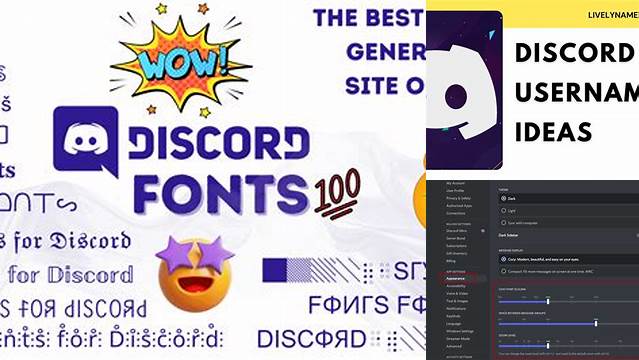
Change Discord Username Font: A Step-by-Step Guide
Hey there, Discord enthusiasts! Want to spice up your Discord profile and make your username stand out from the crowd? One of the coolest ways to do that is by using unique and stylish fonts. Discord itself doesn't offer built-in font customization, but don't worry, there are some clever workarounds we can use. In this comprehensive guide, we'll explore various methods to change your Discord username font, discuss the limitations, and provide you with tips to ensure your new font looks awesome across different devices and platforms. So, buckle up, and let's dive into the world of Discord font customization!
Why Change Your Discord Username Font?
Before we jump into the how-to, let's quickly address the why. Why would you even want to change your Discord username font? Well, there are several compelling reasons:
- Personalization and Expression: Your Discord username is a key part of your online identity. Using a unique font allows you to express your personality and make your profile more memorable. It's like adding a personal touch to your digital handshake.
- Standing Out in a Crowd: Discord servers can be bustling places, with hundreds or even thousands of users. A distinctive font can help your name catch the eye and make you more visible in chat lists and member directories. Think of it as your digital spotlight.
- Creating a Brand: If you're using Discord for streaming, content creation, or building a community, a consistent and recognizable username font can contribute to your overall brand identity. It helps people easily identify you and your content.
- Just for Fun: Sometimes, you just want to experiment and try something new! Changing your font can be a fun way to refresh your Discord experience and show off your creativity. After all, why not have a little fun with your online presence?
So, now that we've established the why, let's move on to the exciting part: how to actually change your Discord username font.
Methods to Change Your Discord Username Font
Okay, guys, so here's the deal: Discord doesn't have a built-in option to directly change fonts within the app itself. But fear not! There are some pretty slick ways around this, using Unicode characters and online font generators. Let's explore the most popular and effective methods:
1. Using Unicode Text Generators
Unicode is a universal character encoding standard that includes a vast range of characters, including stylized letters and symbols that can mimic different fonts. Unicode text generators are online tools that convert your regular text into Unicode characters that appear as fancy fonts. This is the most common and easiest method for changing your Discord username font.
How to Use a Unicode Text Generator:
- Find a Unicode Text Generator: There are tons of these online! Just Google "Discord font generator" or "Unicode text generator" and you'll find a bunch of options. Some popular choices include LingoJam, Cool Fonts, and YayText. Feel free to explore and find one that you like.
- Enter Your Desired Text: In the generator's input box, type the username you want to use on Discord. This is the text you want to convert into a fancy font.
- Choose a Font: The generator will display your text in various font styles. Scroll through the options and pick the font that you think looks the coolest and best represents your style. Some generators offer a wide variety of fonts, from bold and italic to bubble letters and even more decorative styles.
- Copy the Generated Text: Once you've found the perfect font, simply copy the generated text to your clipboard. This is the Unicode version of your username that you'll paste into Discord.
- Paste into Discord: Now, head over to your Discord settings. You can access these by clicking the cog icon next to your username at the bottom left of the Discord window. In the "My Account" section, click "Edit" next to your username. Paste the copied Unicode text into the username field.
- Save Changes: Finally, enter your password and click "Save" to update your Discord username with the new font. Voila! Your Discord username now sports a brand new, eye-catching font.
2. Using Discord Text Formatting (Limited)
Discord has built-in text formatting options that can add some flair to your messages and, to a limited extent, your username. While this method won't give you fancy fonts like Unicode generators, it can add some emphasis and visual interest.
Discord's Text Formatting Options:
- Bold: Enclose your text in double asterisks (\**text\**). This makes your text appear bold.
- Italic: Enclose your text in single asterisks (\text\). This makes your text appear italic.
- Underline: Enclose your text in double underscores (\__text__). This underlines your text.
- Strikethrough: Enclose your text in double tildes (\
text\). This strikes through your text. - Code: Enclose your text in single backticks (\
text\\
). This displays your text in a monospace font, often used for code snippets. - Code Block: Enclose your text in triple backticks (\
Changing your Discord username font is a fantastic way to add personality, stand out from the crowd, and express your unique style. While Discord doesn't offer native font customization, using Unicode text generators and other methods allows you to get creative with your profile. Just remember to consider readability, compatibility, and server rules when choosing a font. With a little experimentation, you can create a Discord username that truly reflects who you are. Go ahead, guys, give it a try, and let your Discord profile shine!